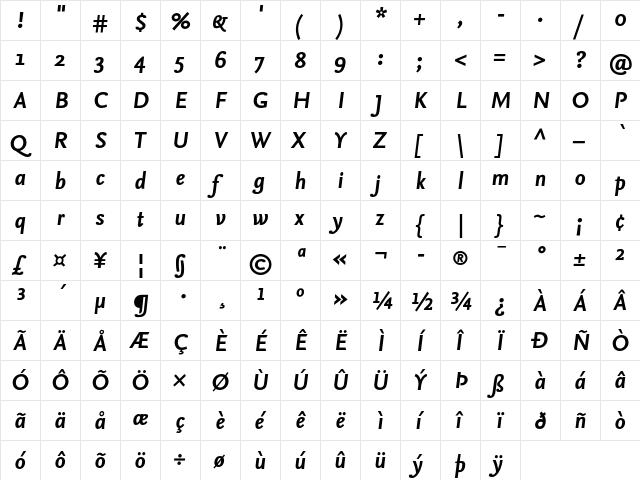
NexusSans-BoldItalic Regular Font Preview
Design Context for NexusSans-BoldItalic Typeface
NexusSans-BoldItalic takes a measured approach to typography — its balanced proportions and neutral character make it a reliable workhorse for both digital and print work. The dynamic lean of this cut emphasises speed and emphasis in any layout. Its bold stroke weight gives it real presence on the page.
Pro Tip: Try NexusSans-BoldItalic for annotation and caption copy alongside an upright companion — the contrast in angle creates a dynamic but ordered typographic system.